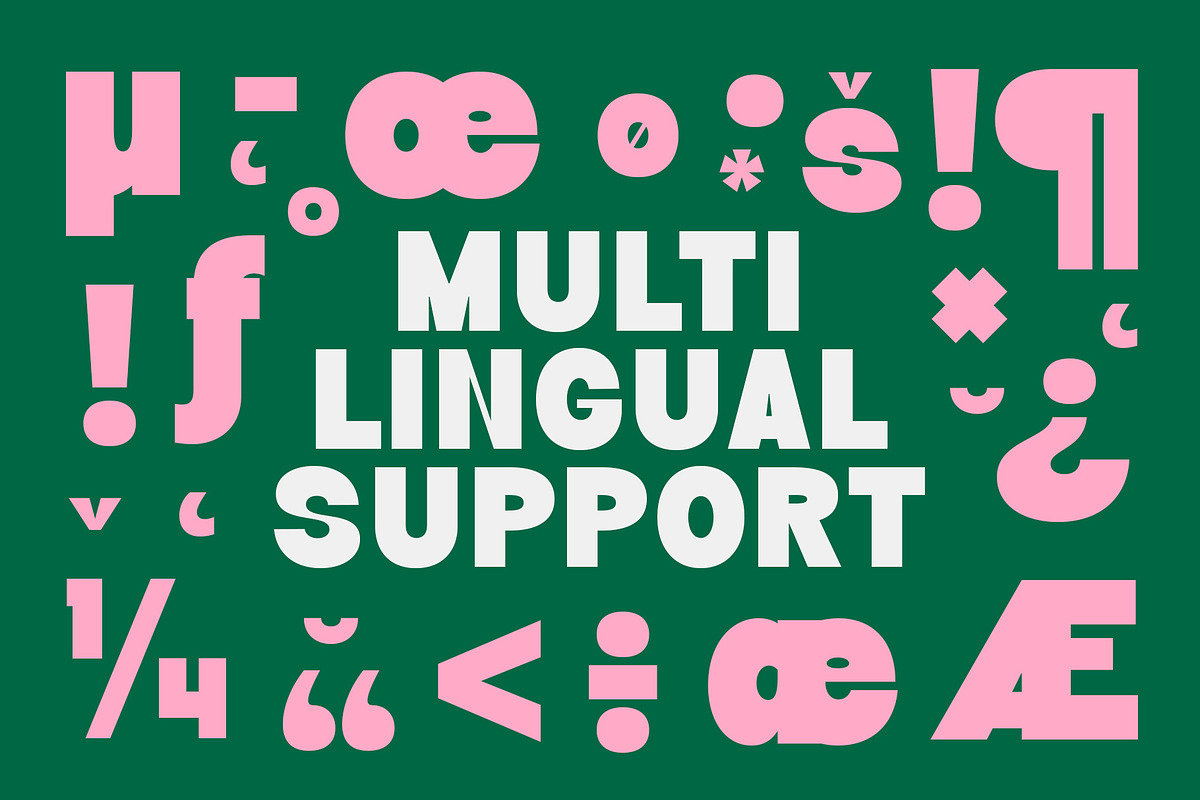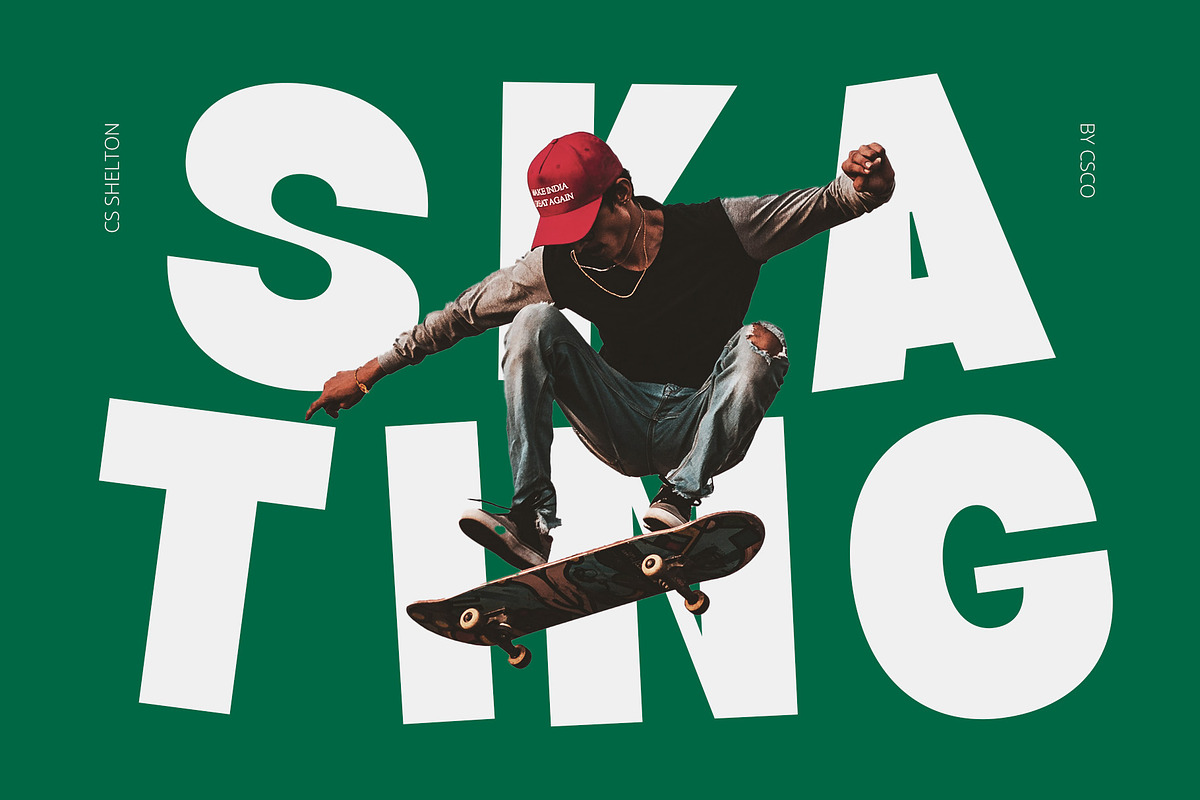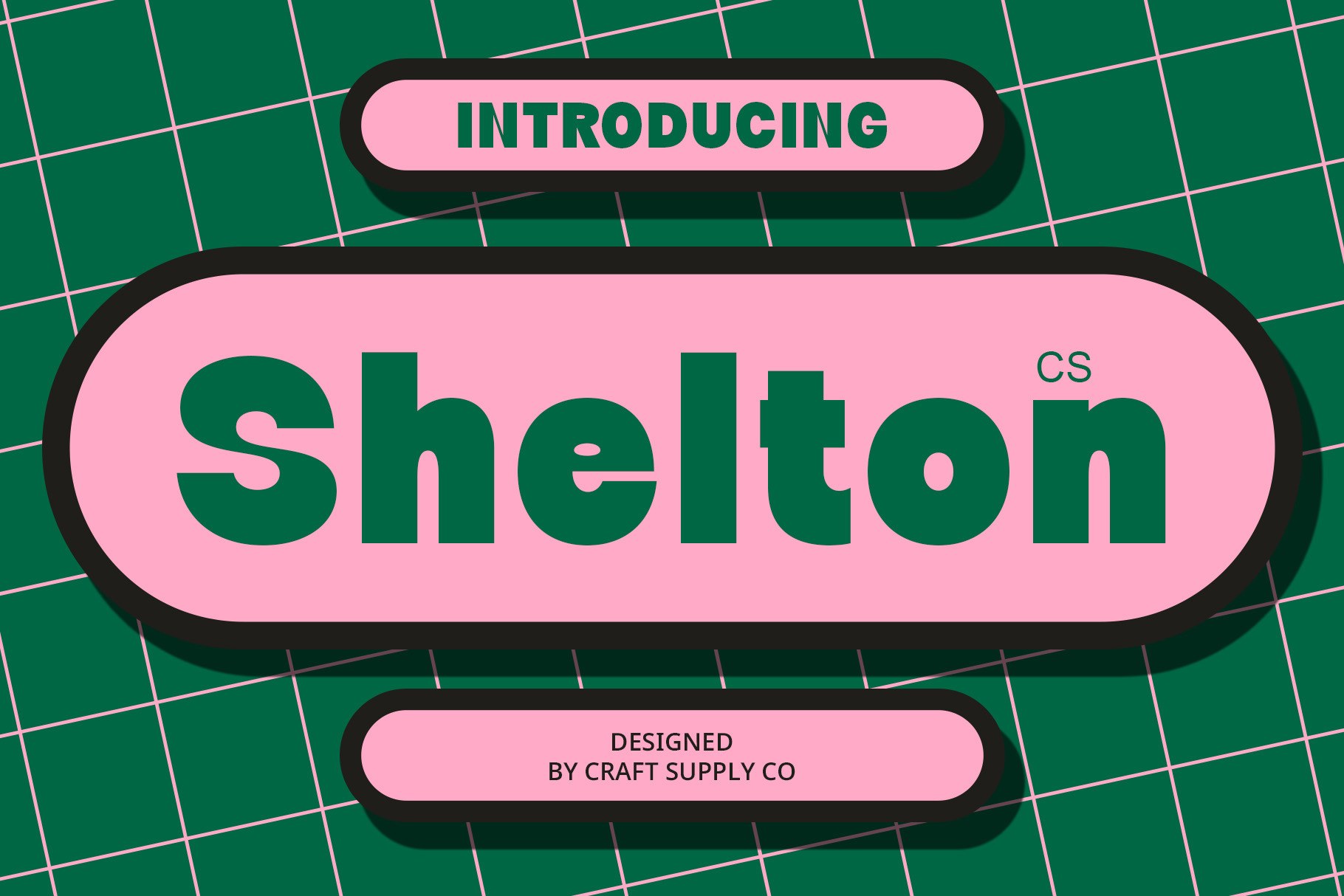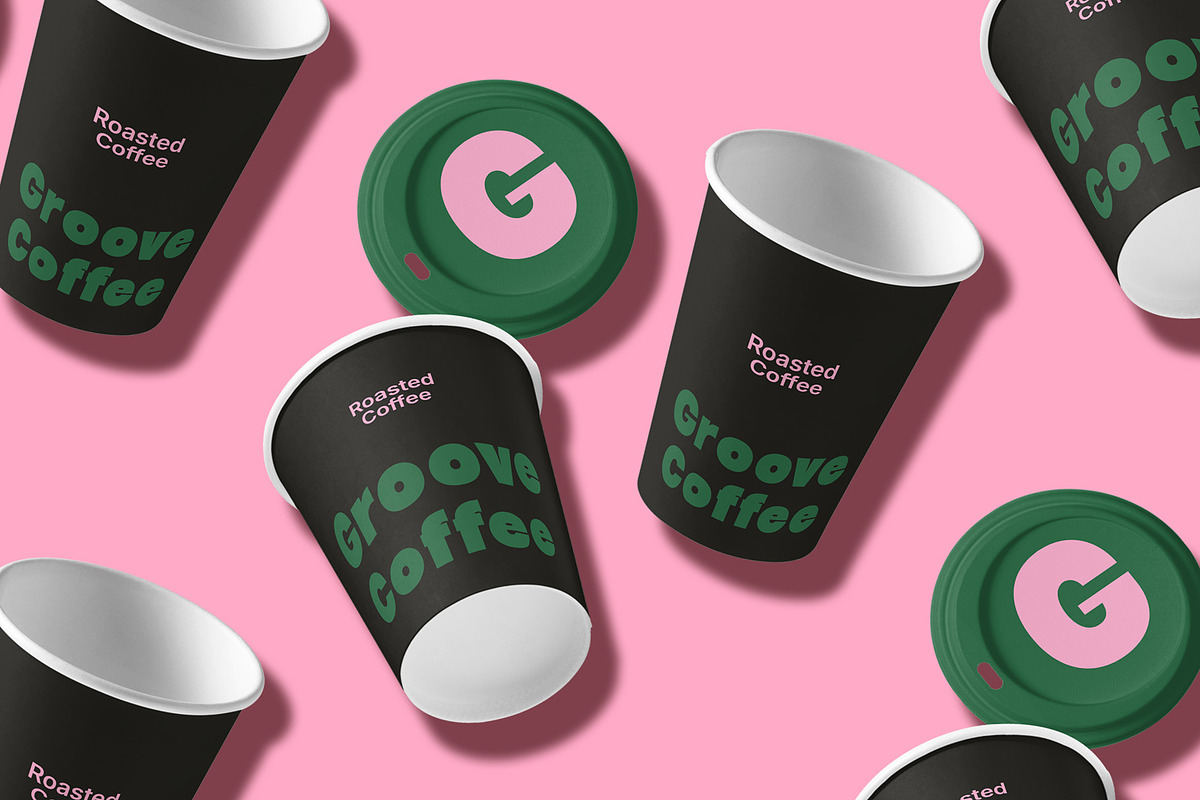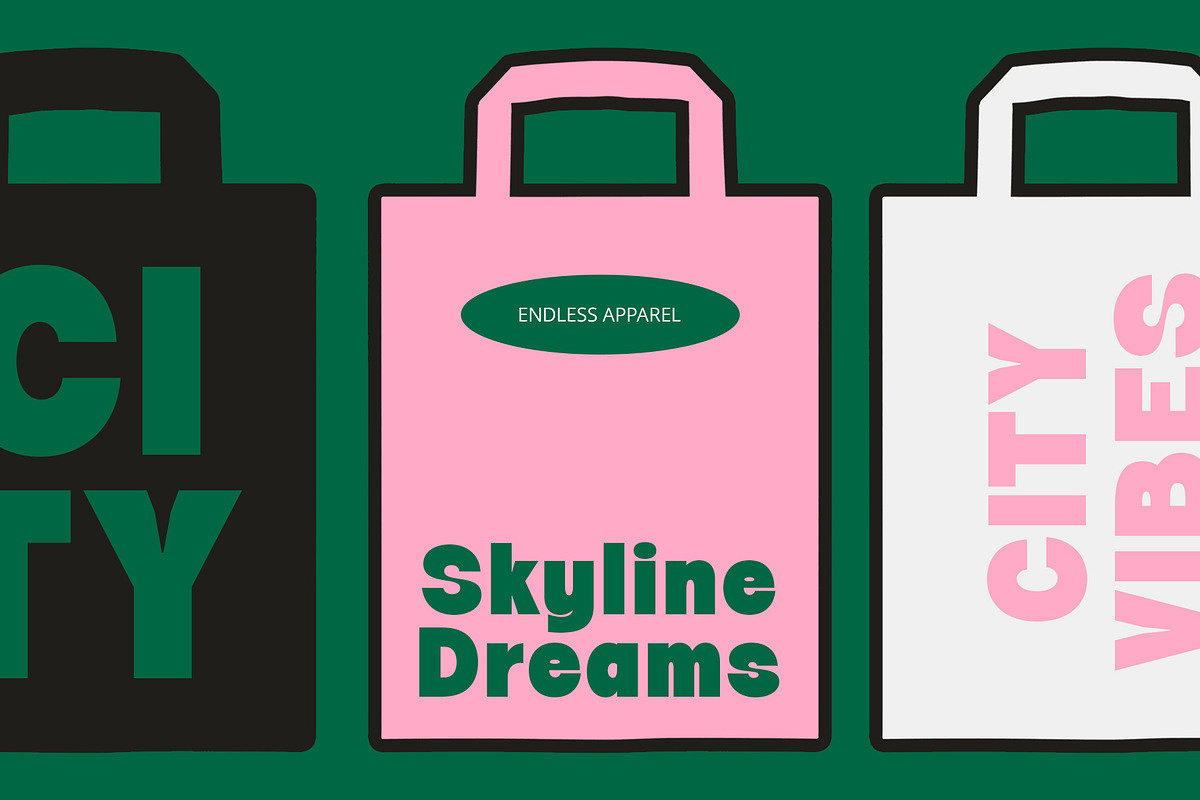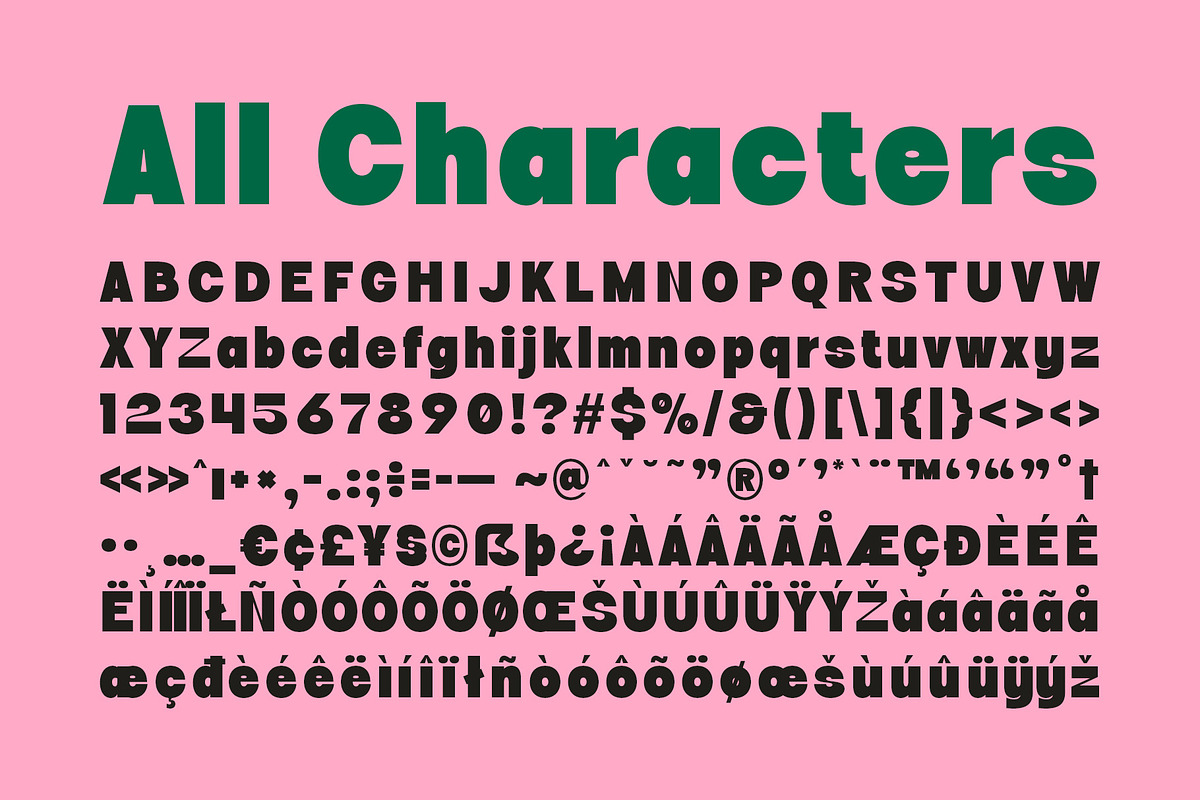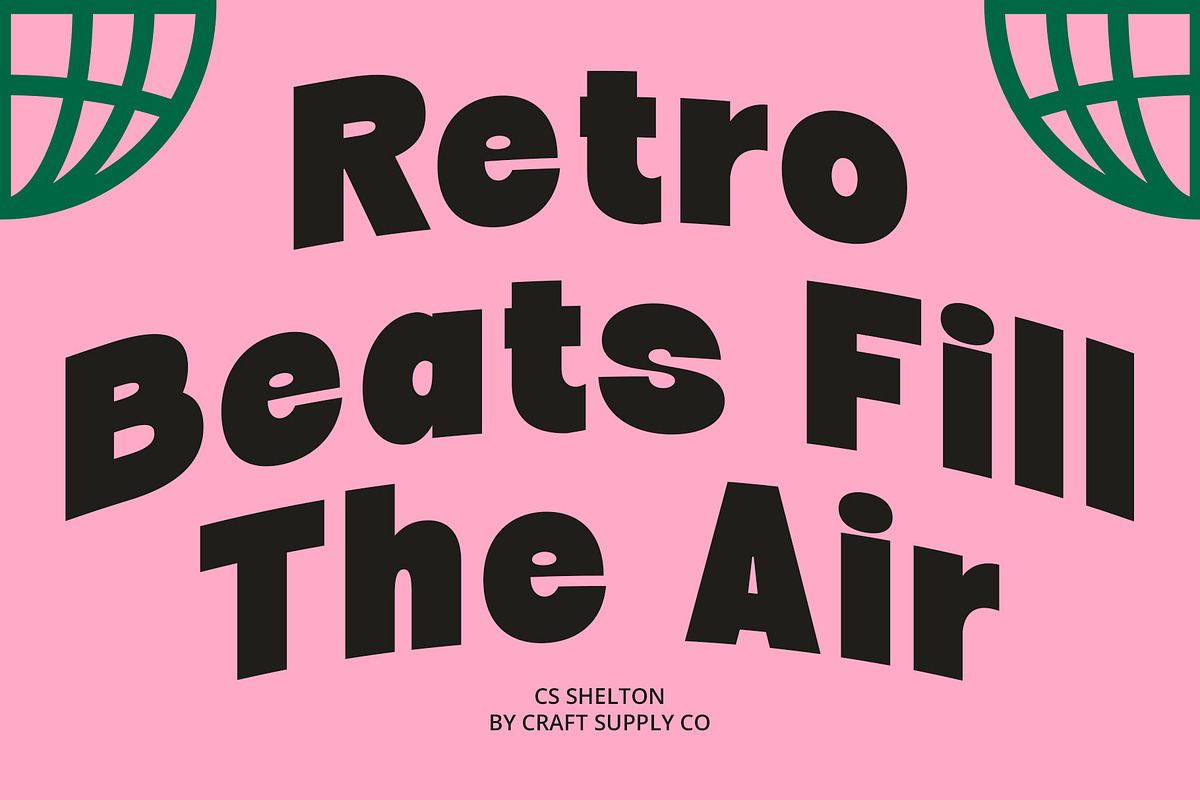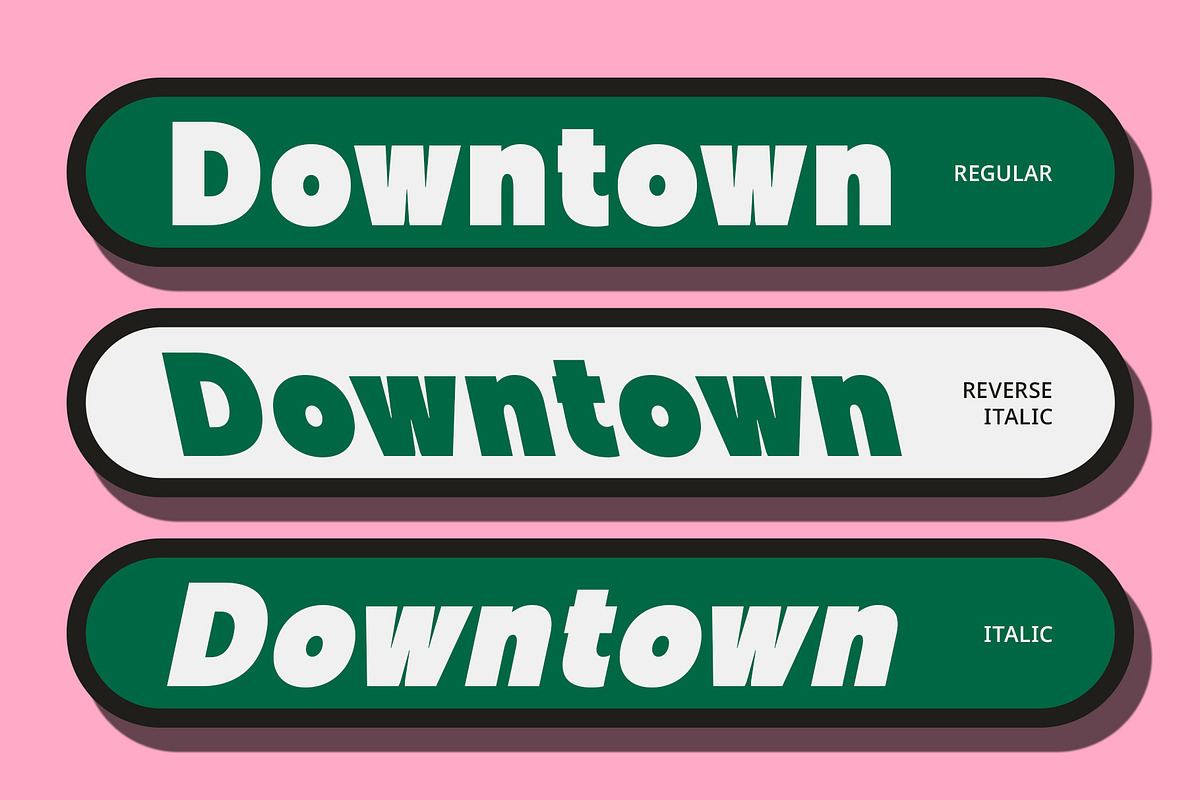
CS Shelton – Bold Font
CS Shelton Font: Bold and Assertive Modern Sans Serif
Strength and Simplicity in Every Letter CS Shelton is a modern sans-serif font designed with bold, upright lines that exude power and confidence. Its thick forms emphasize each letter, creating a strong and commanding presence. By eliminating serifs, the font maintains a clean, minimalist design that feels both contemporary and timeless. The absence of decorative flourishes ensures a smooth and streamlined appearance, making it ideal for designs that require clarity and impact.
Evoking Boldness and Confidence The defining feature of CS Shelton is its boldness. The thick, upright strokes give it a sense of stability and strength, while the modern sans-serif style maintains an air of sophistication. This font is perfect for projects that need to stand out and capture attention quickly. Whether it’s a headline, logo, or advertisement, CS Shelton commands focus, ensuring that your message is delivered with decisiveness and clarity.
Ideal for Attention-Grabbing Designs CS Shelton is perfect for branding, posters, and advertising campaigns where visual impact is paramount. Its bold form ensures that text remains legible and striking, even in large formats or from a distance. It’s the go-to choice for modern, energetic designs that aim to leave a lasting impression. From tech companies to lifestyle brands, this font conveys a sense of modern professionalism with a touch of dynamism.
- CS Shelton Regular
- CS Shelton Italic
- CS Shelton Reverse Italic